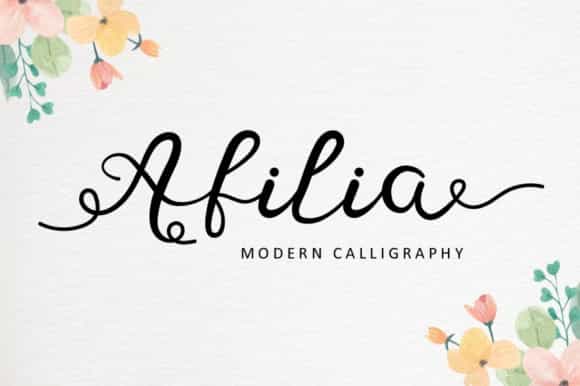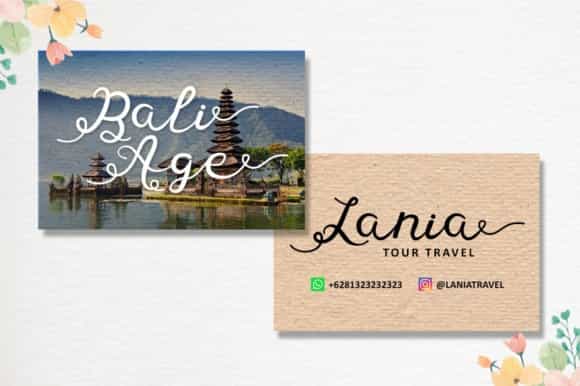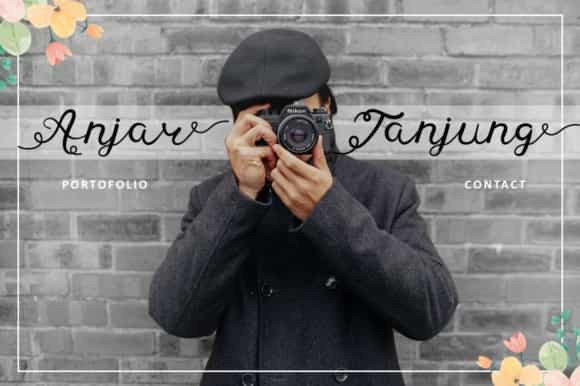
Discover Afilia Modern Calligraphy Font, part of the Calligraphy collection—a versatile and unique font perfect for adding a personal touch to your projects. Download it for free and enjoy crafting designs with style, from invitations to social media posts. This font is available exclusively for personal use, giving you the freedom to create without limits. Unlock your creativity with Afilia Modern Calligraphy Font today!
The elegant new Afilia Calligraphy Font is here! For those of you whose designs need just a little bit of elegance and modernity, this font is for you! Afilia was constructed with OpenType characteristics and has the starting as well as ending swashes, alternate swash characters for almost all lowercase letters, numbers, punctuation marks, alternates , ligatures and it also supports other languages.